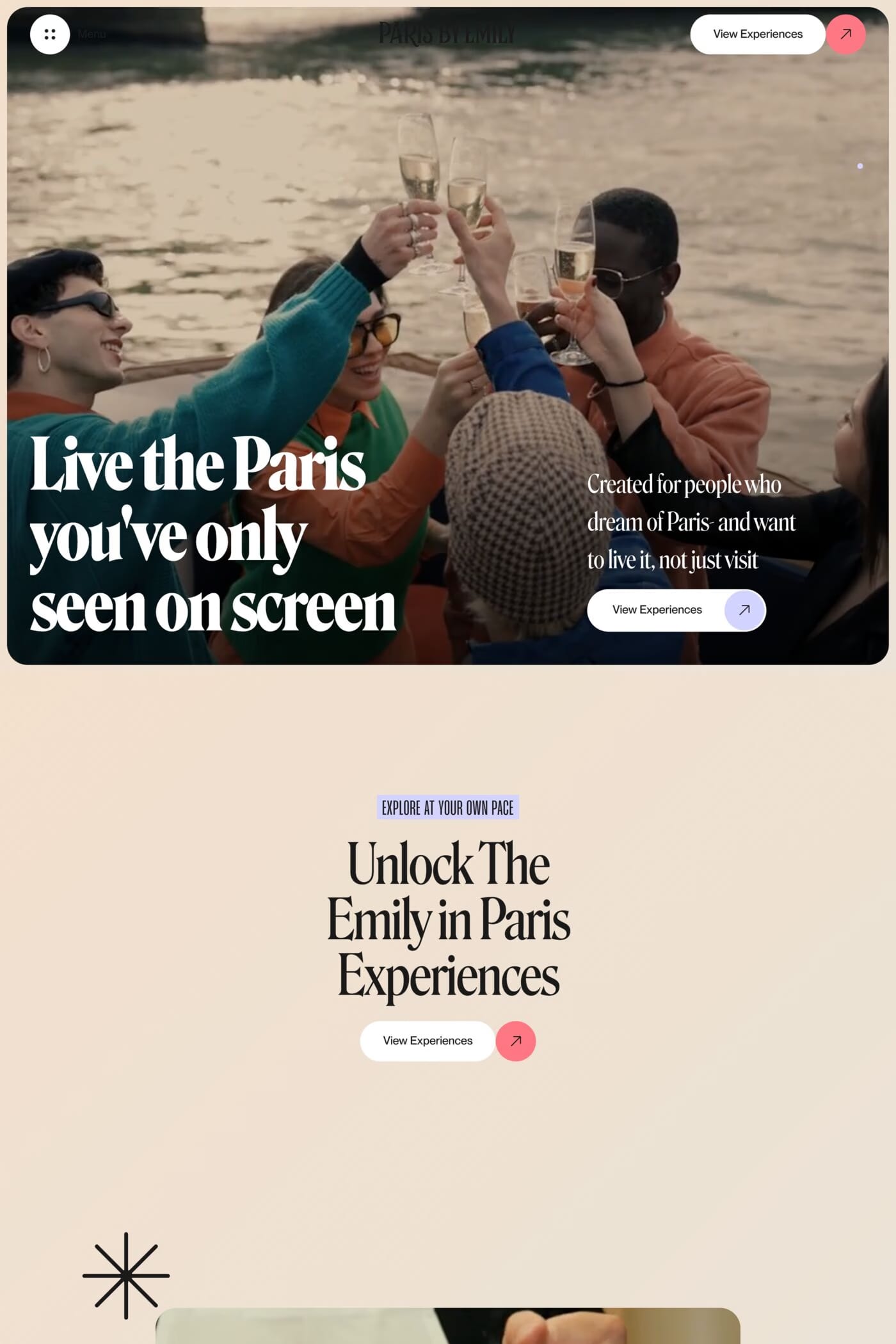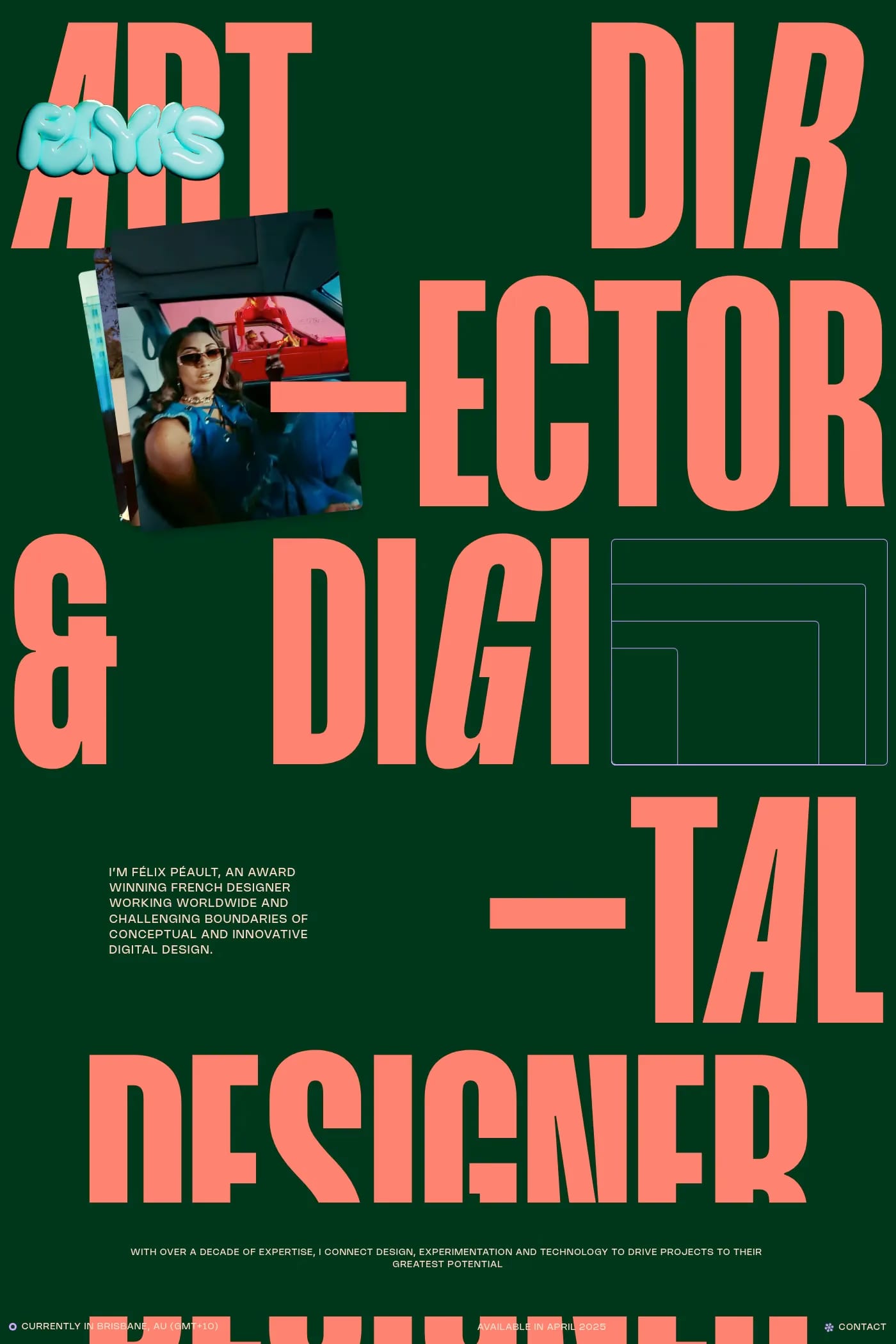
Mango Grotesque™ is a variable typeface, allowing even more customization and creative flexibility. It has 9 weights and 18 styles to choose from. In addition, its super-tight design and condensed aesthetic make it perfect for digital and print applications.
A1 features 2 websites using Mango Grotesque, including Emily in Paris and Flayks. They lean towards Animated, Serif, and Elegant design styles, and they’re most often built with Webflow and Astro.